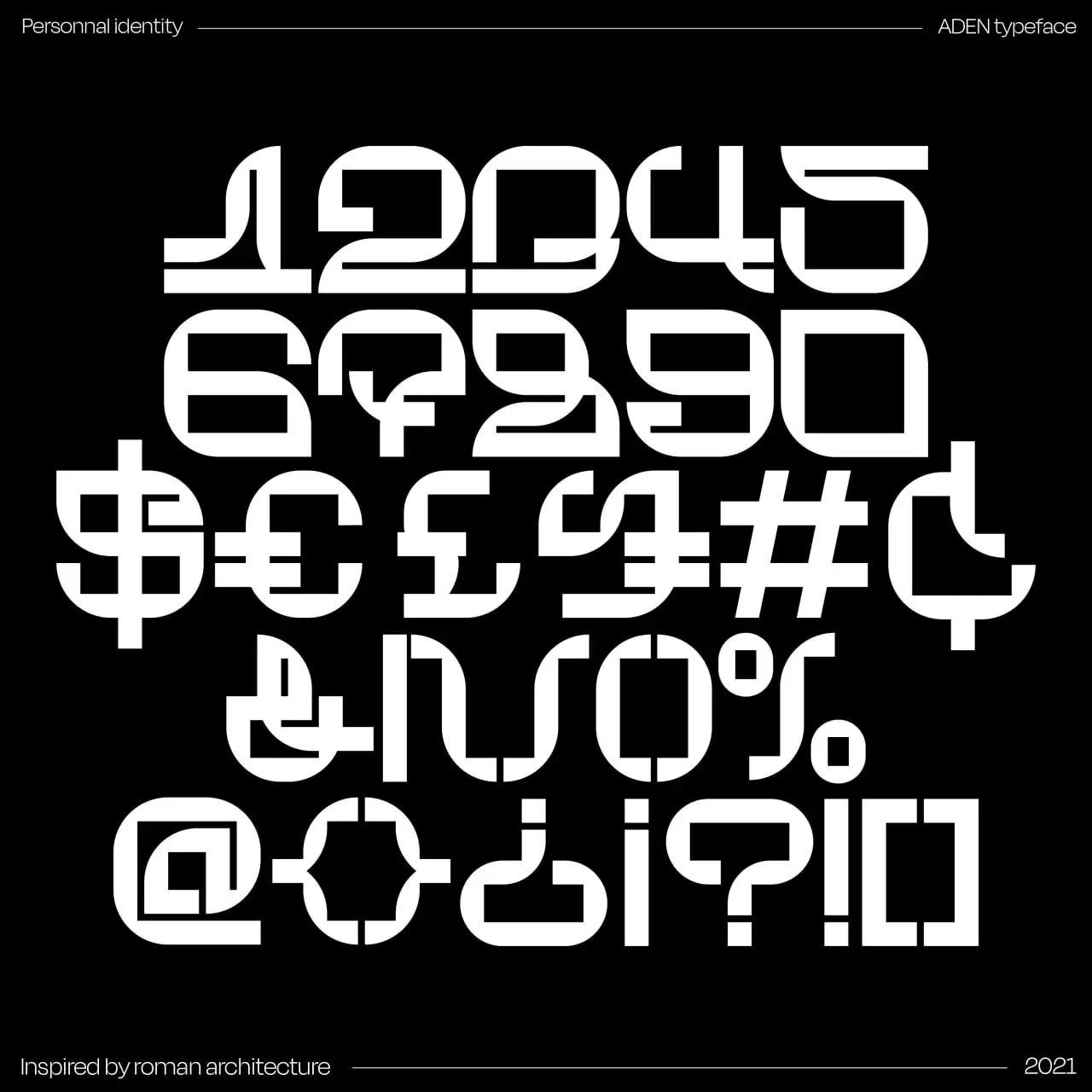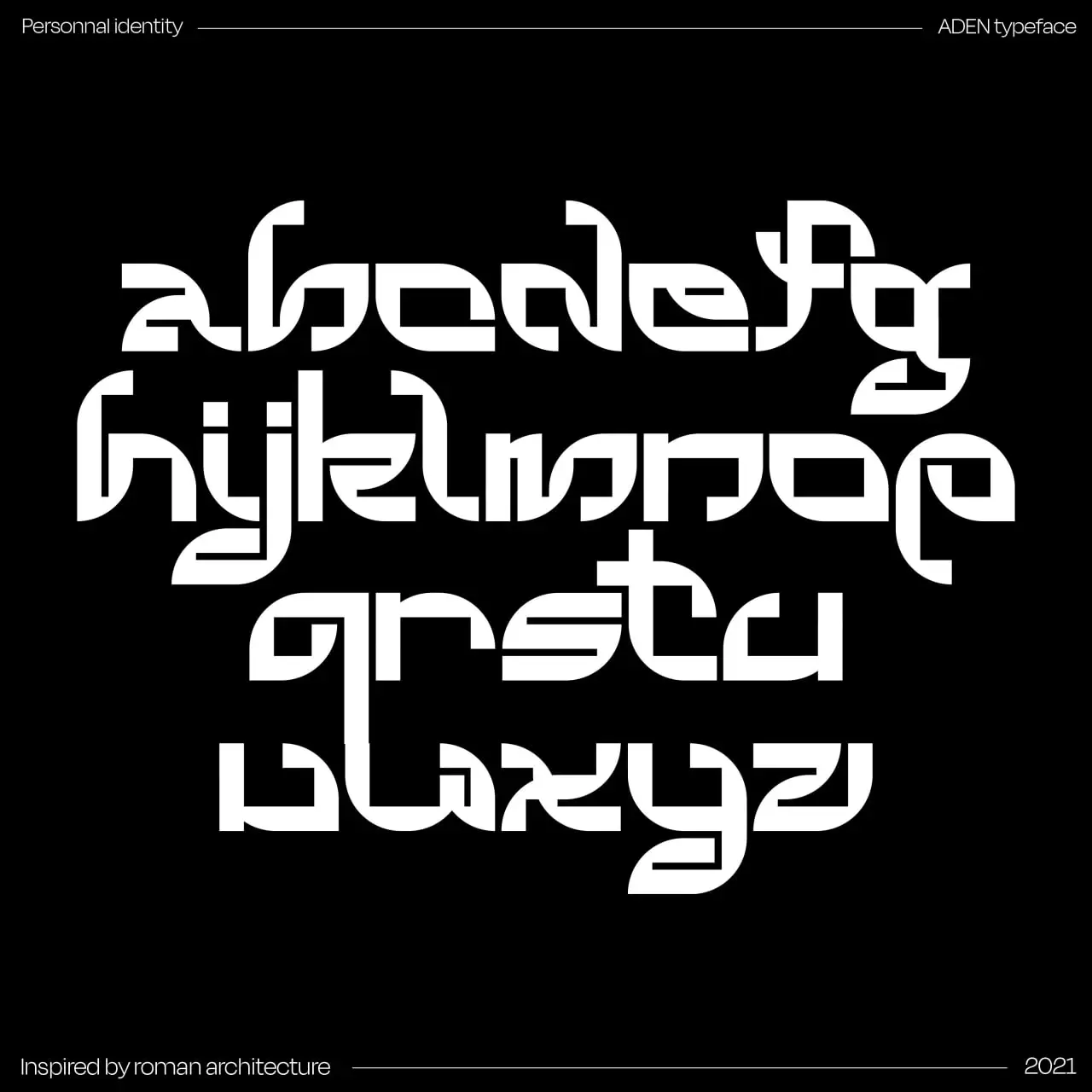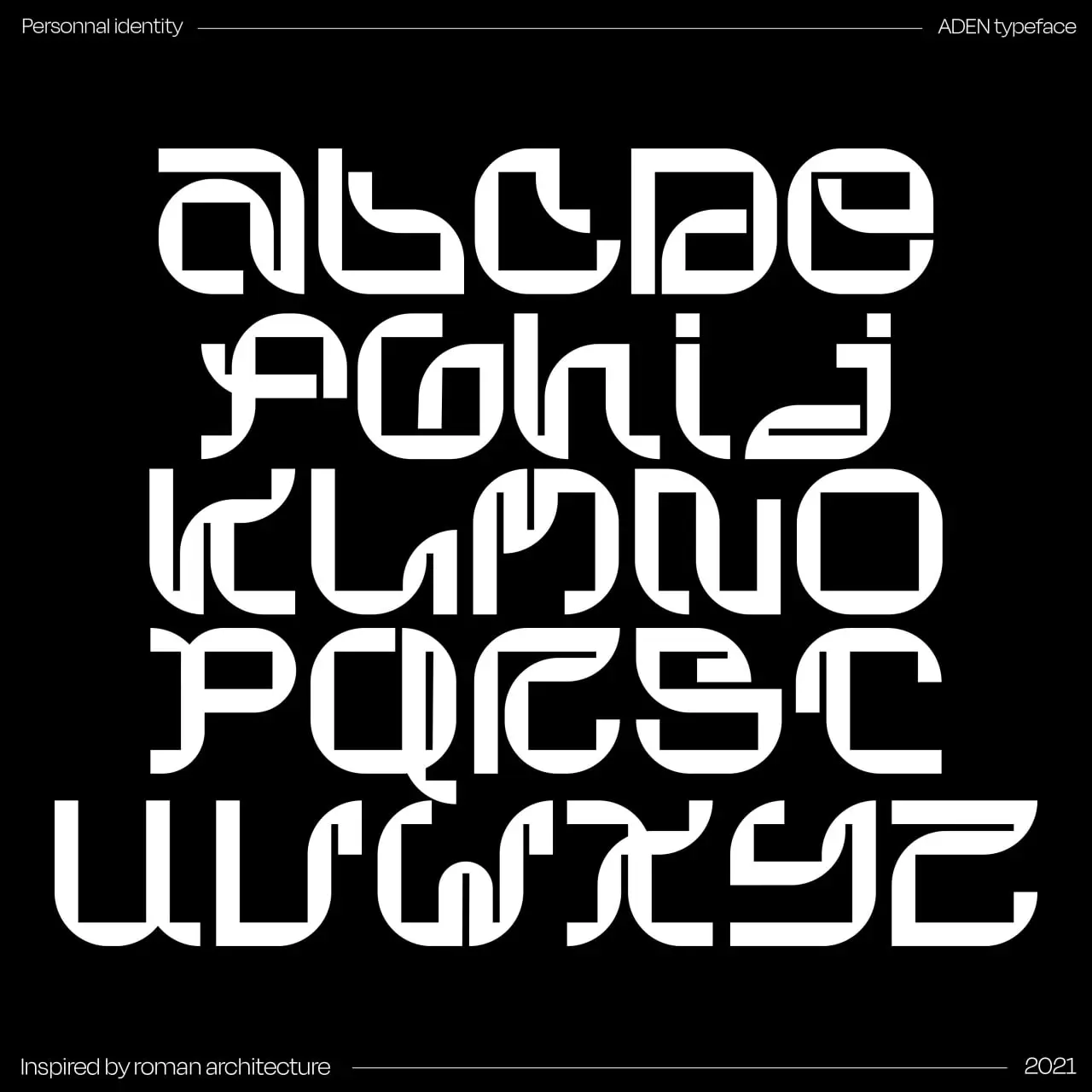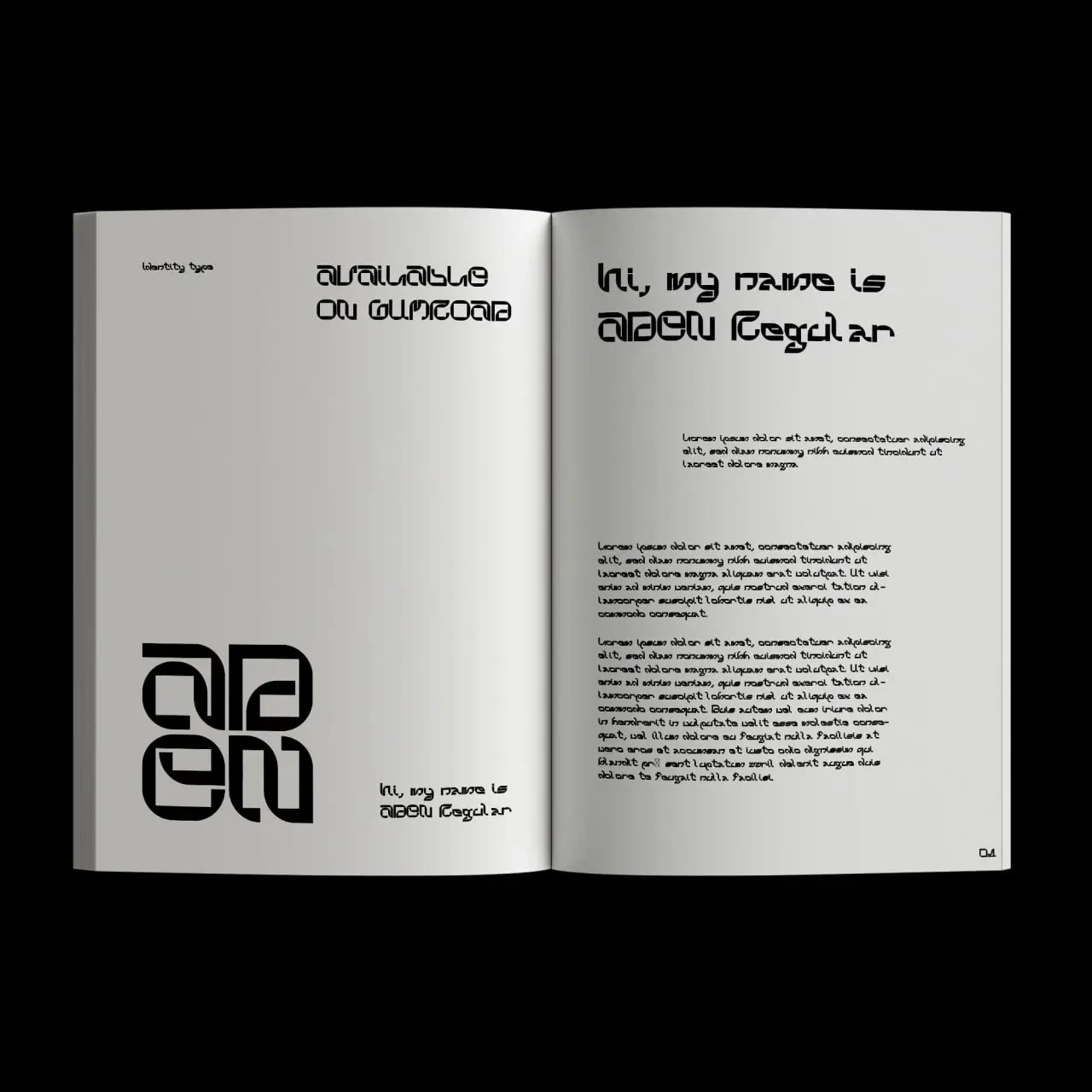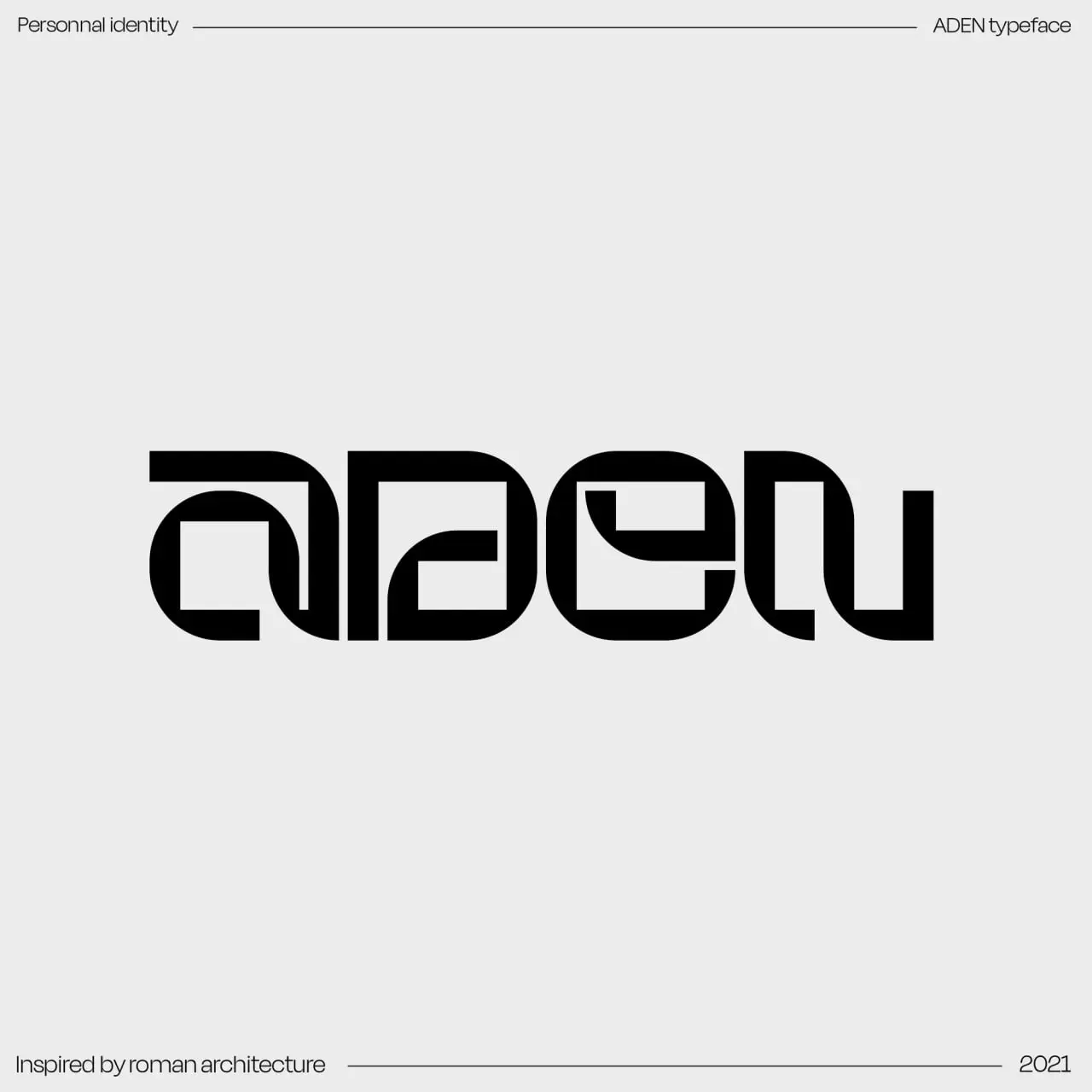
Aden Typeface
The Aden Typeface is a modern and versatile font that seamlessly blends elegance with functionality. Its clean lines and contemporary design make it suitable for a variety of applications, from branding to digital media.
• Multiple weights for varied design needs
• Stylish uppercase and lowercase letters
• Includes numerals and punctuation